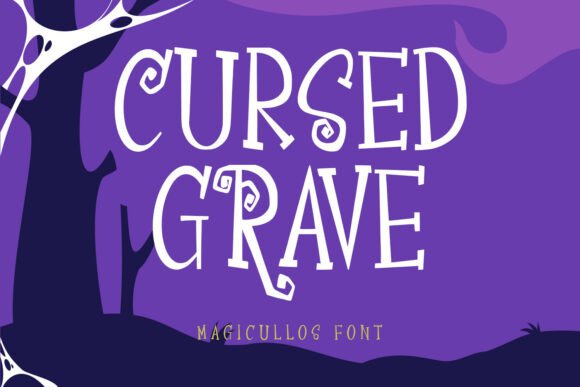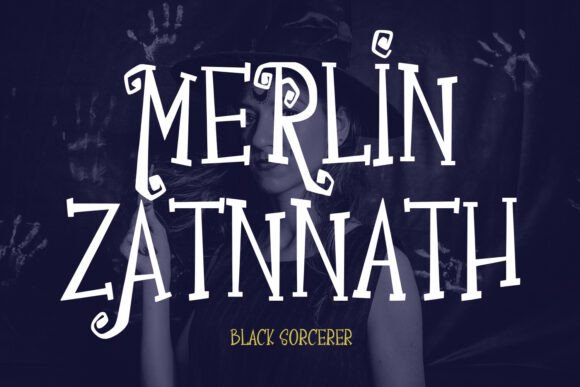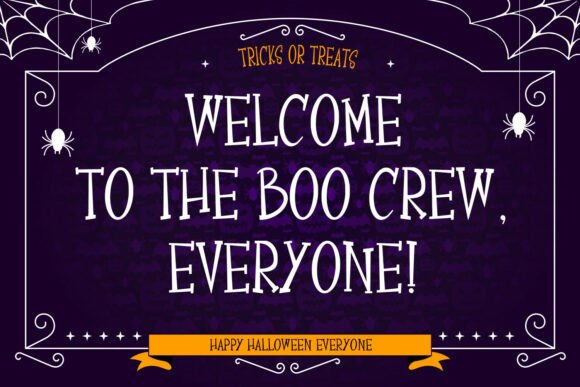
Introduction to Magicullos Halloween Font
Magicullos Halloween is a unique and interesting display font.
A little bit quirky, this font looks incredibly adept on a wide variety of contexts .
Key Features of Magicullos Halloween Font
Why Choose Magicullos Halloween Font?